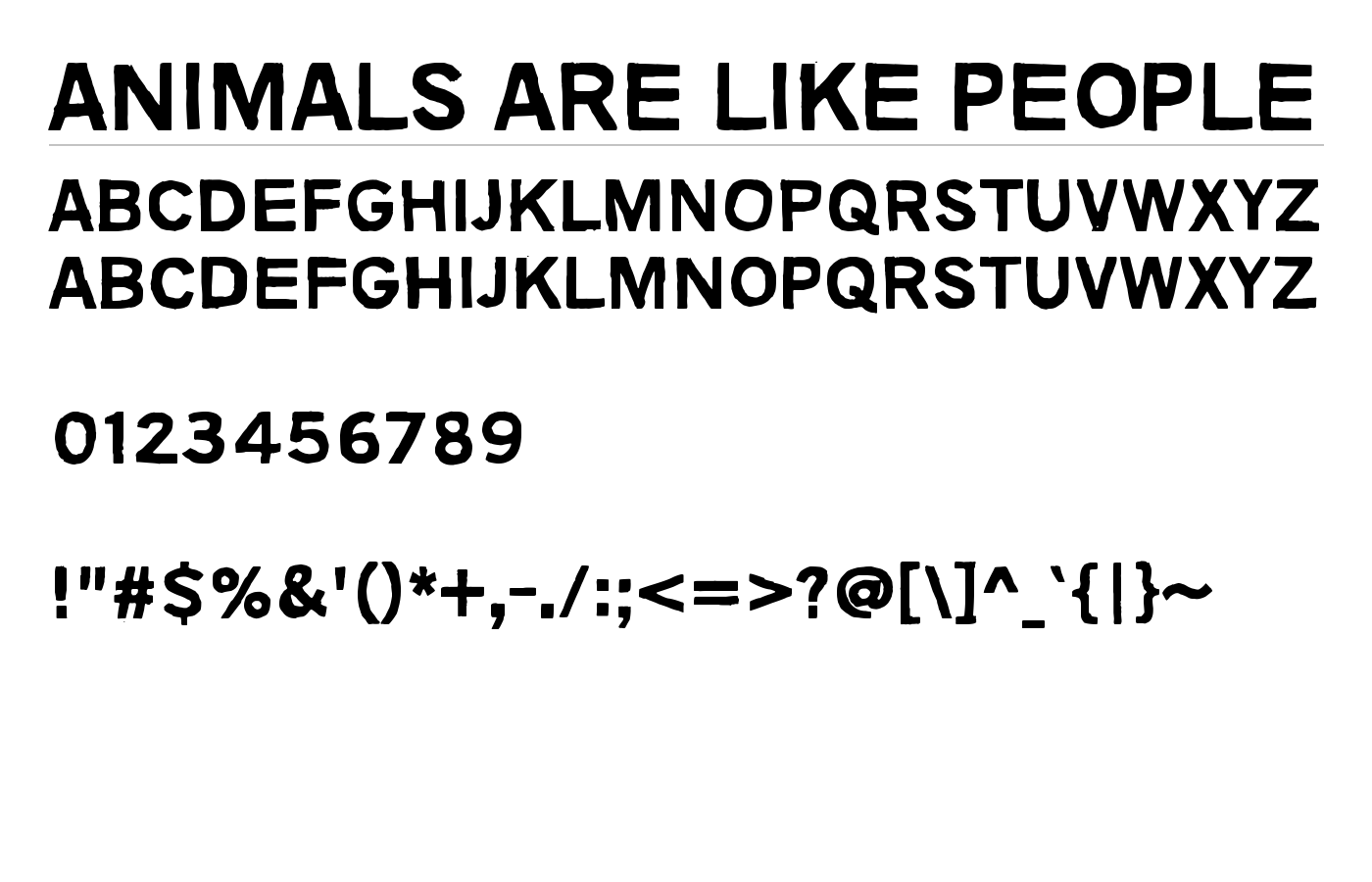
"Animals are like people" is a playful and bold sans serif font with a hand-drawn, slightly irregular style that adds charm and character. Its strong weight and wide proportions make it ideal for casual, approachable designs, perfect for children’s materials, posters, or branding that seeks a fun and lively vibe. The font’s distinctive and lively letterforms bring an informal and friendly energy to any project.
Animals are like people Font
About Animals are like people Font
| Font family | Animals are like people Font |